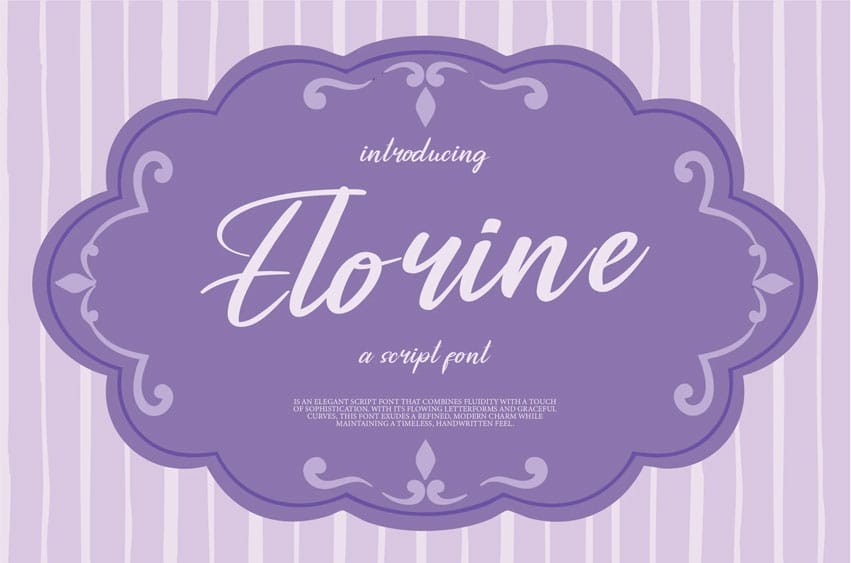
Elorine Font is an elegant and enchanting script font, blending sophisticated curves with delicate flourishes. Its graceful strokes evoke a sense of timeless beauty and refinement, making it perfect for projects that demand a touch of class.
Whether used in invitations, branding, or artistic designs, Elorine captures a harmonious balance between fluidity and strength. The smooth, flowing lines and subtle details give it an ethereal quality, ideal for conveying a sense of luxury and elegance.